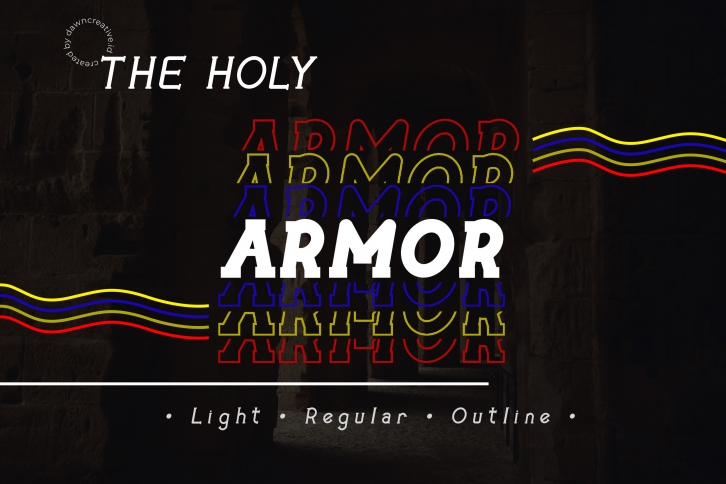
The Holy Armor FONT Download
The Holy Armor Font Download
The Holy Armor is a gorgeous font that was realeased on December 7, 2019. The font can be used in many style contexts and design environments. Perfect for invitations, magazines, websites, logos, and more! It was designed by Dawn Creative and the file size is 19.69 MB. Thanks for checking out this font!